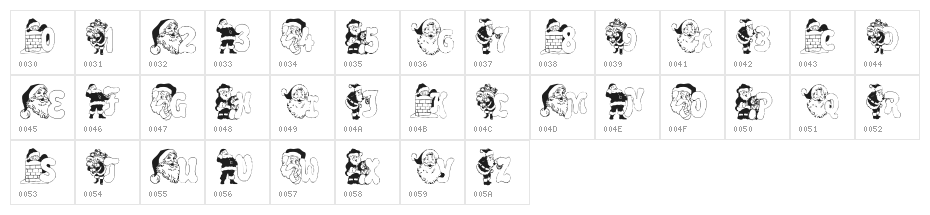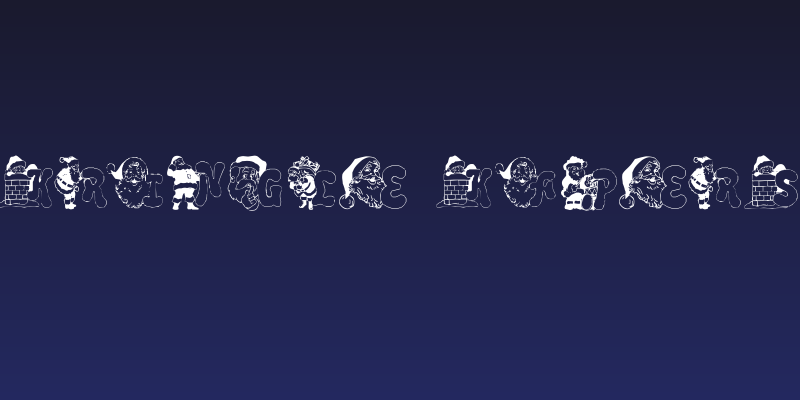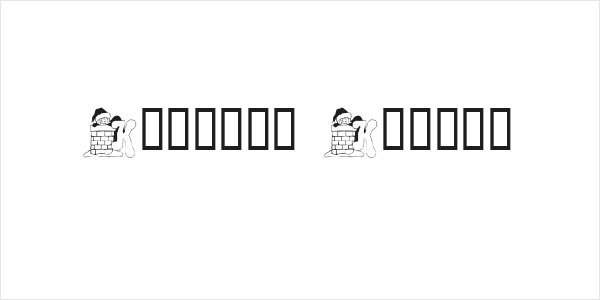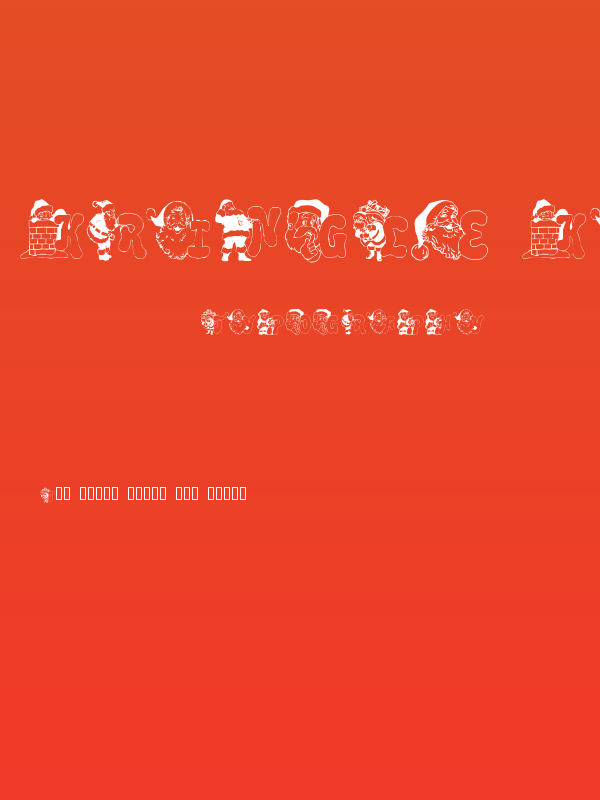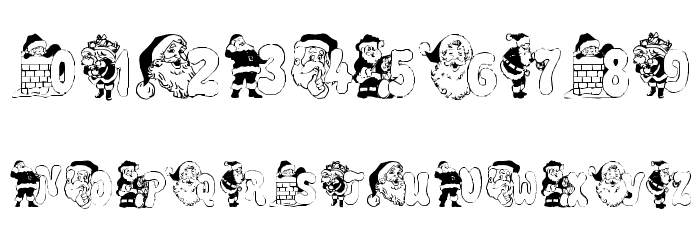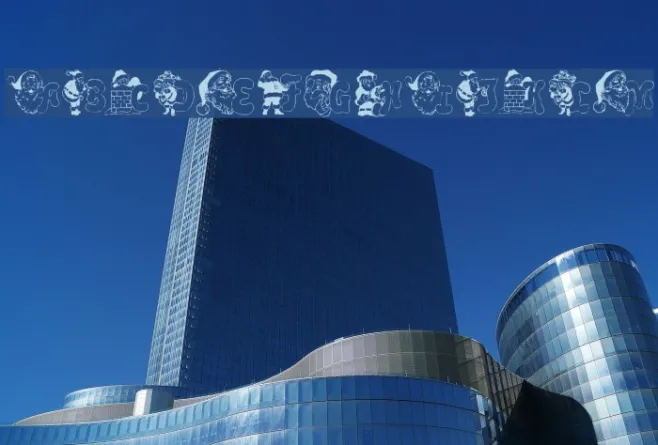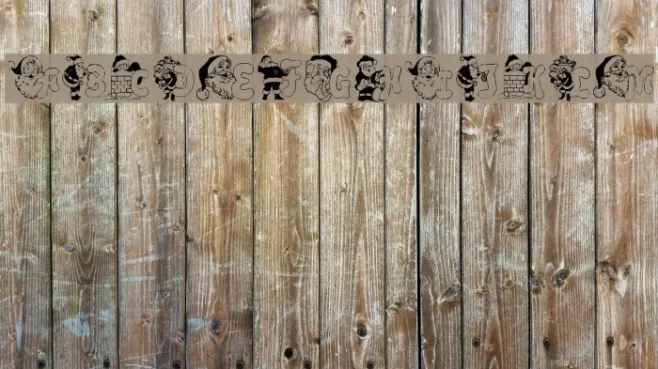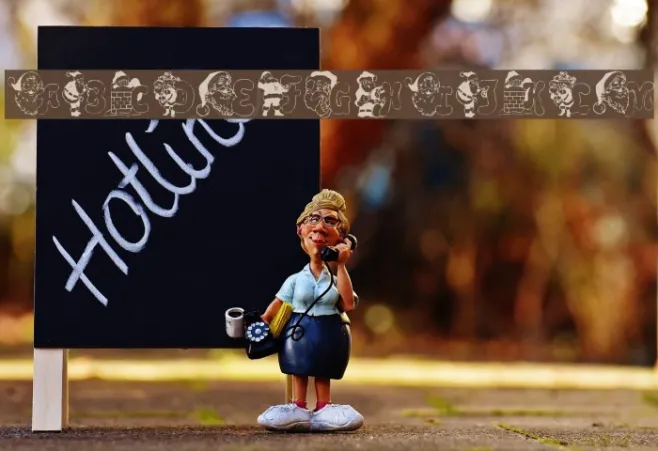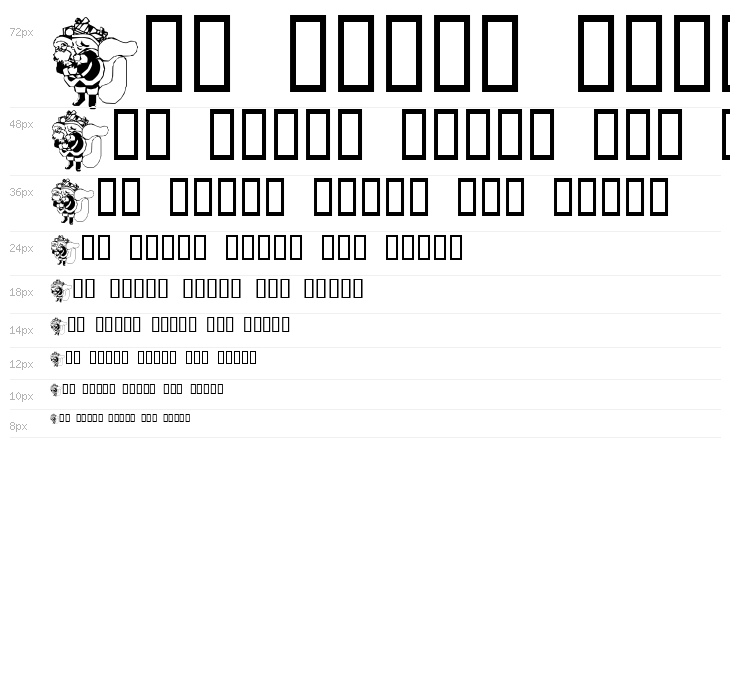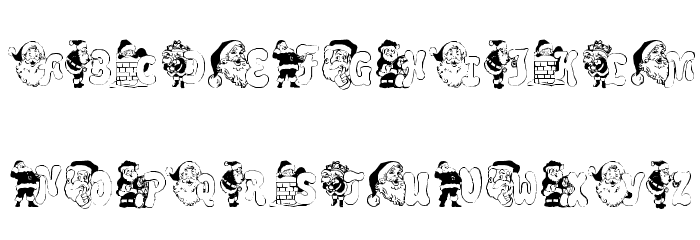
Kringle Kapers Font
Kringle Kapers Description
This whimsical and festive font features playful depictions of Santa Claus and holiday-themed elements integrated into each character. The letters are designed with a cartoonish style, incorporating elements like Santa hats, beards, and Christmas trees, creating a joyful and celebratory atmosphere. The font is highly decorative, making it ideal for holiday-themed projects. Each character is unique, with intricate details that capture the essence of the holiday season. The overall design is bold and eye-catching, perfect for adding a touch of holiday spirit to any design.
| Proposed Projects | Ideal for holiday cards, festive banners, Christmas party invitations, and seasonal advertisements. |